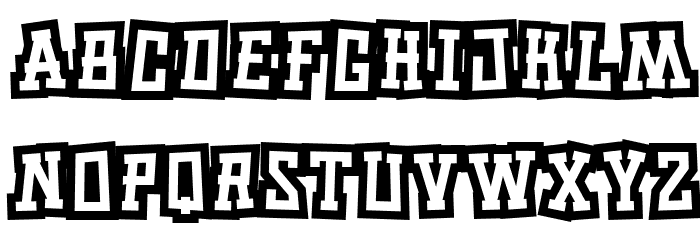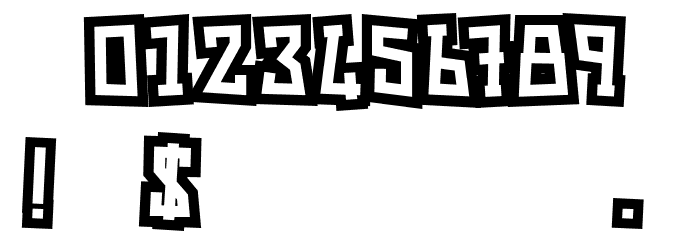
Road Trip Font
This font features a bold, playful design with a strong, blocky appearance. The characters are outlined with a thick black border, giving them a striking, cartoon-like quality. Each letter and number is slightly tilted, adding a dynamic and energetic feel. The font is highly decorative, making it ideal for eye-catching headlines or creative projects. Its unique style is reminiscent of comic book lettering, with exaggerated proportions and a sense of movement. The special characters maintain the same bold and playful aesthetic, ensuring consistency across all elements.
A bold, playful font with a cartoon-like, blocky design and thick outlines.
- Font: Road Trip
- Proposed Projects: Ideal for comic books, children's books, posters, and playful branding projects.
- Overall Style: Playful, Cartoonish, Energetic
- Use Case: Headlines, Posters, Branding